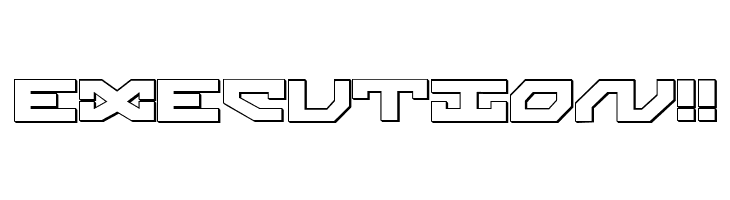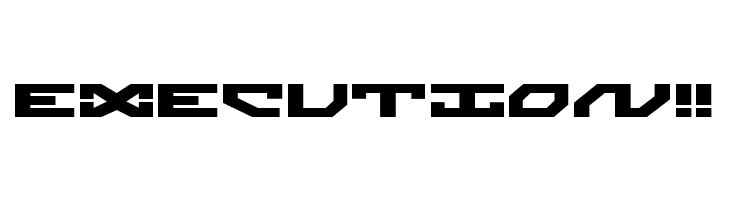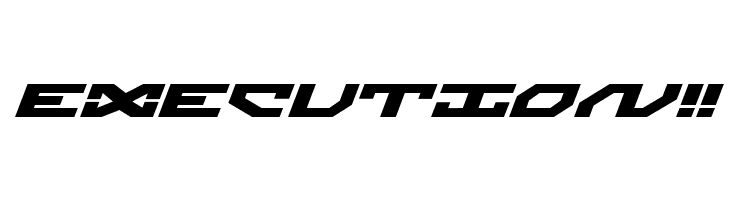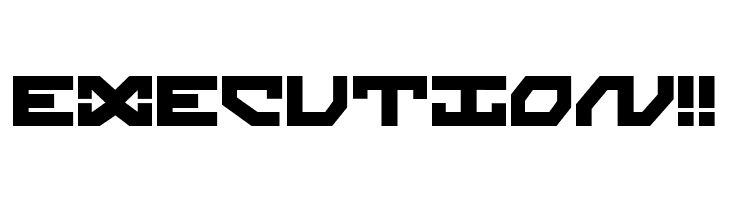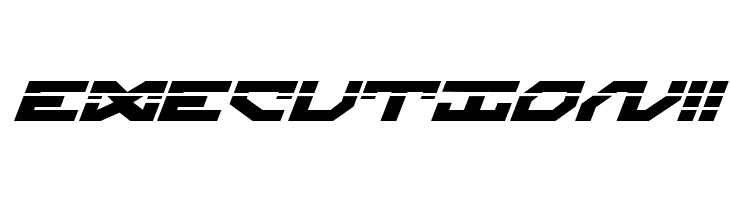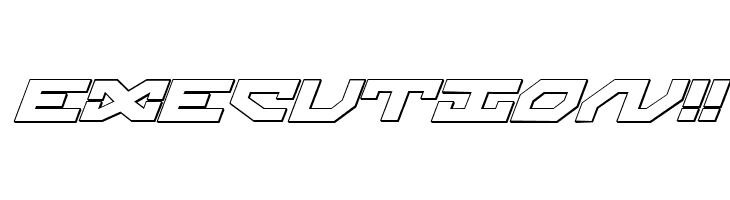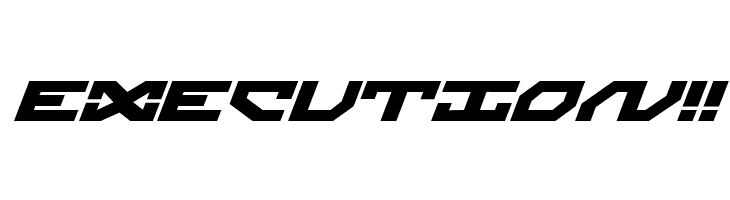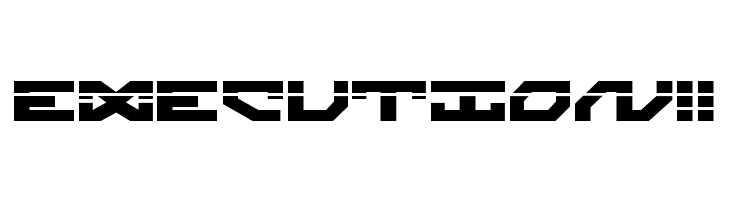
Sewing Patterns 3 Font
- Font: Sewing Patterns 3
A futuristic, angular font with sharp edges and geometric shapes.
A bold, futuristic font with sharp, angular shapes.
A bold, futuristic font with sharp angles and an italicized style.
A futuristic, angular italic font with a bold, high-tech design.
A futuristic, angular font with a dynamic slant and outline style.
A bold, italicized font with a futuristic and angular design.
A futuristic, angular font with bold geometric shapes.